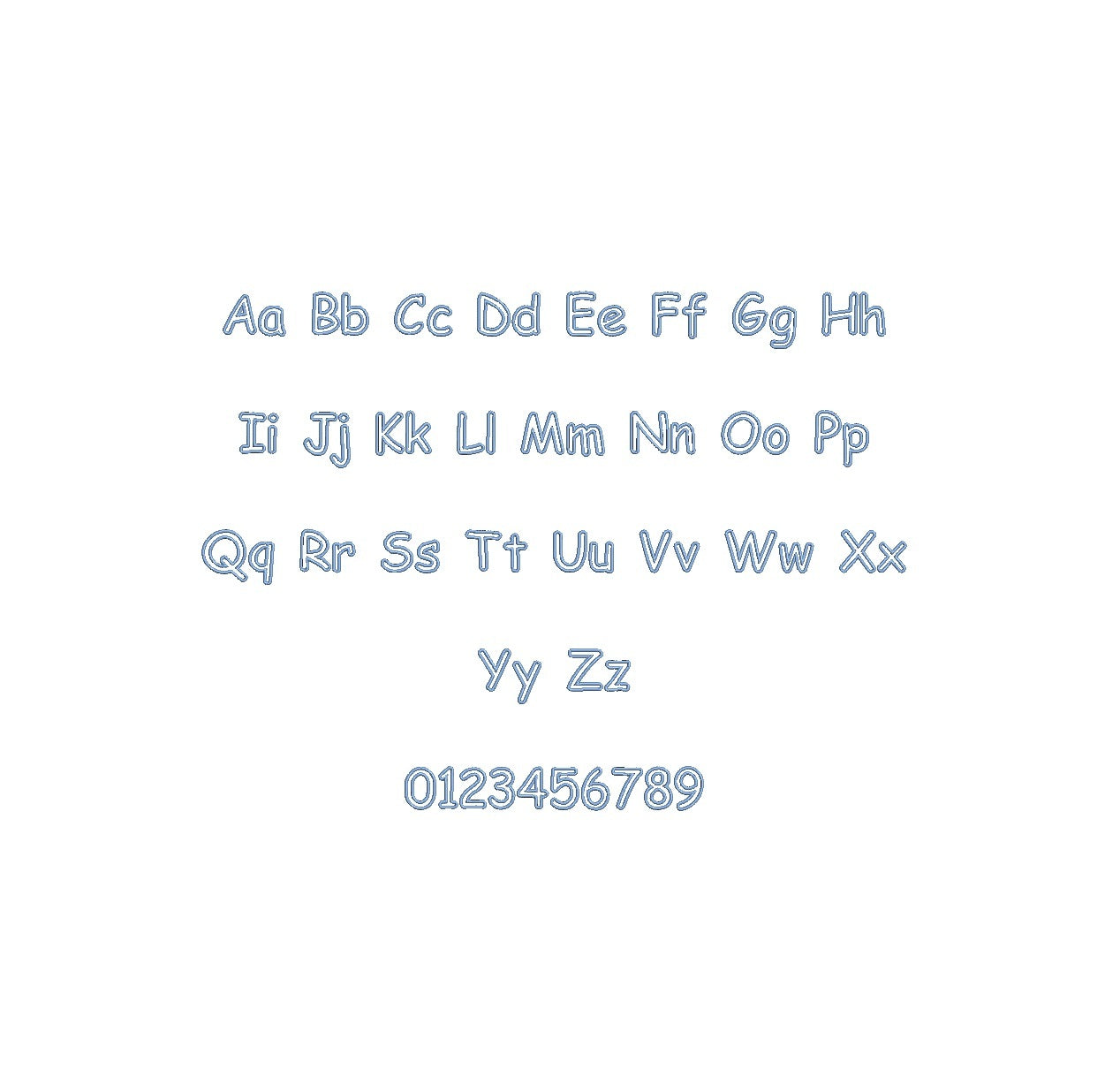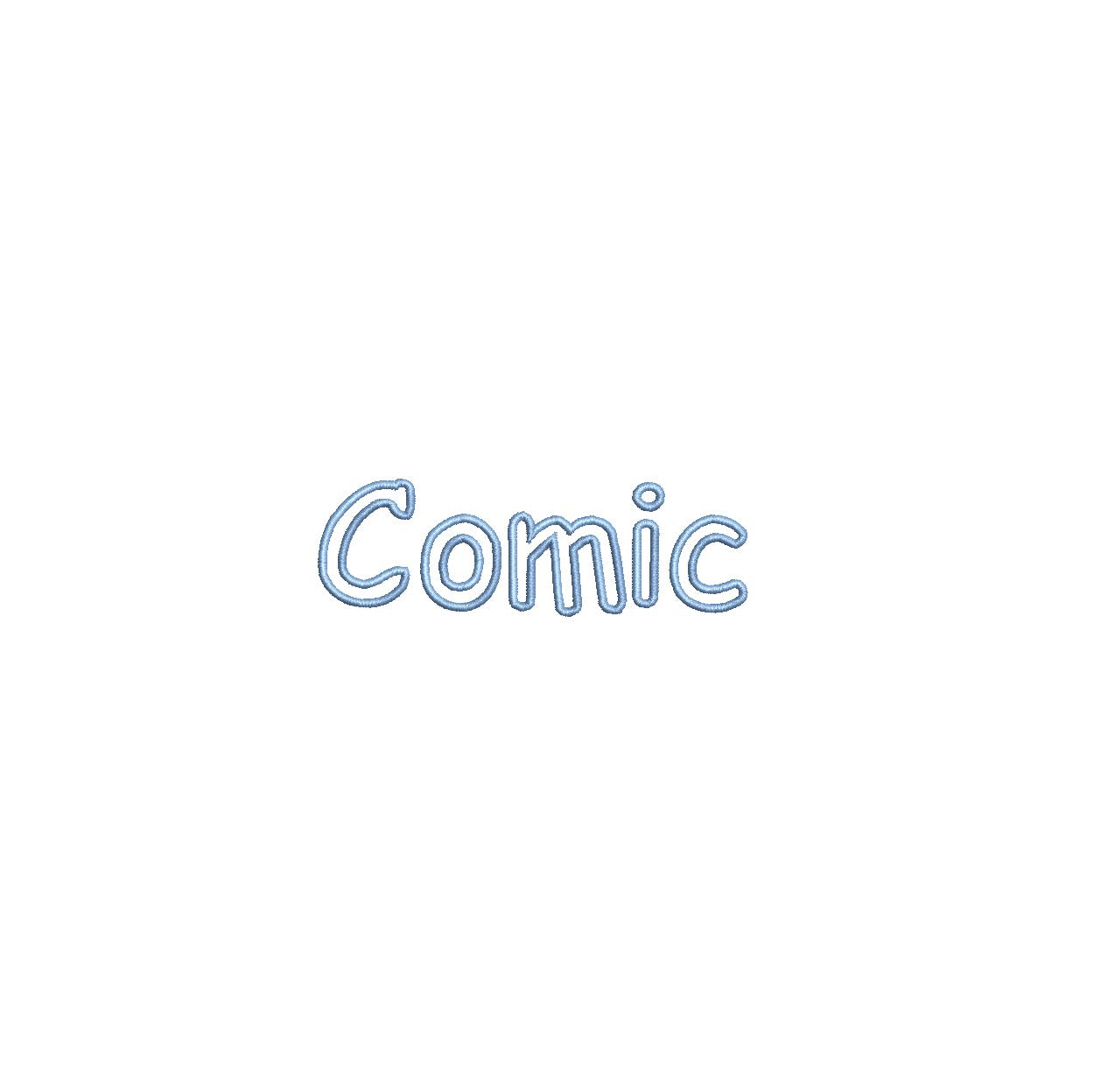
Unleash your creativity with the Comic Outline ESA font, now fully compatible with Wilcom Studio e4.5.6 and Hatch 3 versions and beyond. This playful typeface adds a burst of fun and personality to your embroidery projects. Its bold outlines and whimsical style are perfect for comic-inspired designs, children's clothing, and quirky logos. With seamless integration into your preferred embroidery software, editing is a breeze, and readability is top-notch. Elevate your designs, make them pop, and captivate your audience with the Comic Outline ESA font. Discover a world of endless possibilities in digitizing, all with this essential tool at your fingertips.